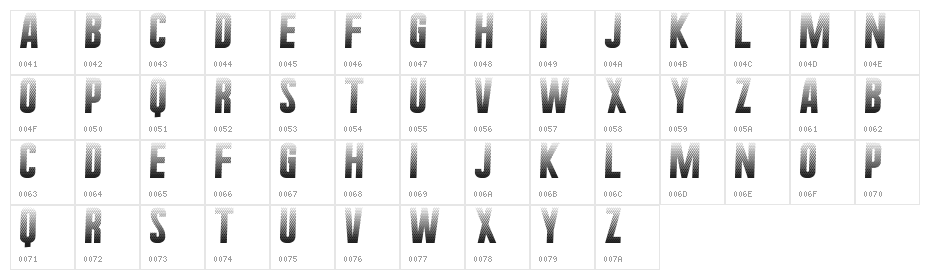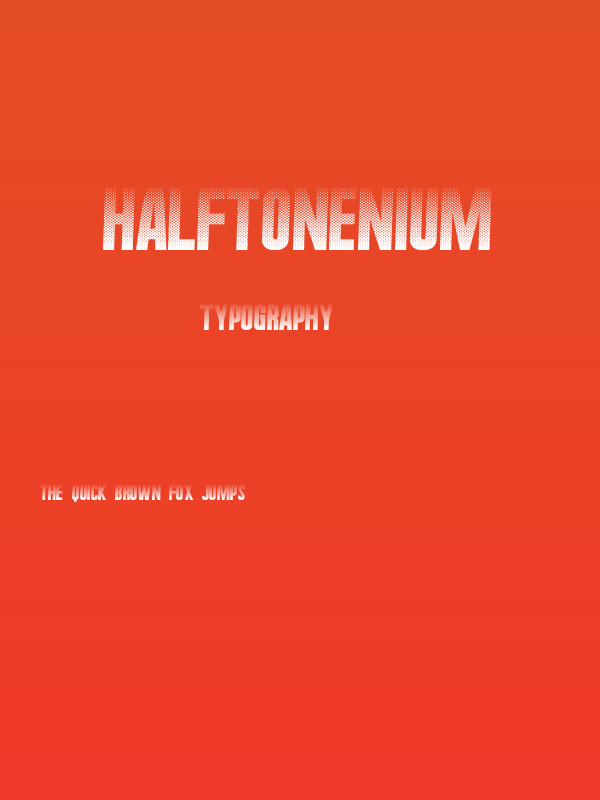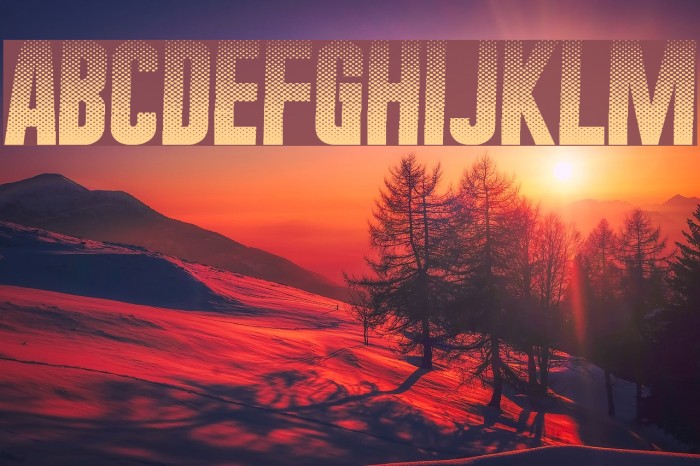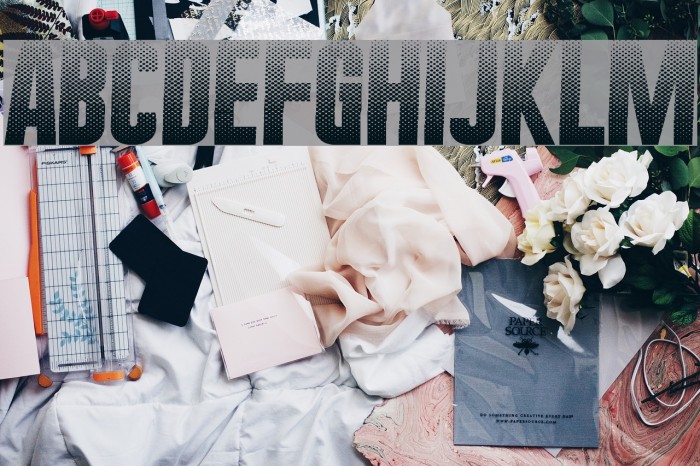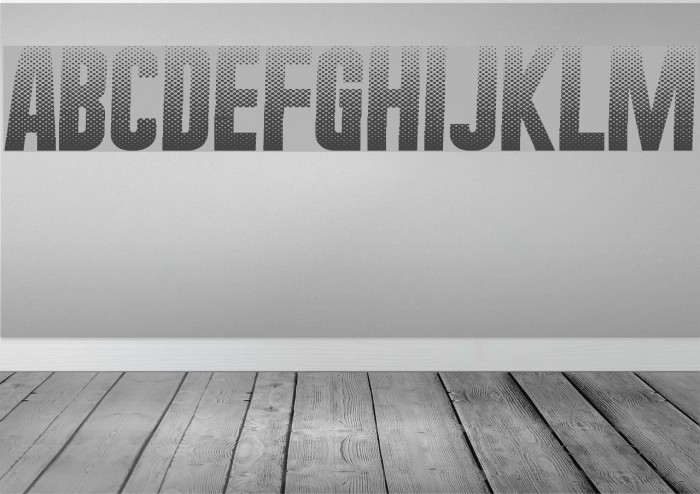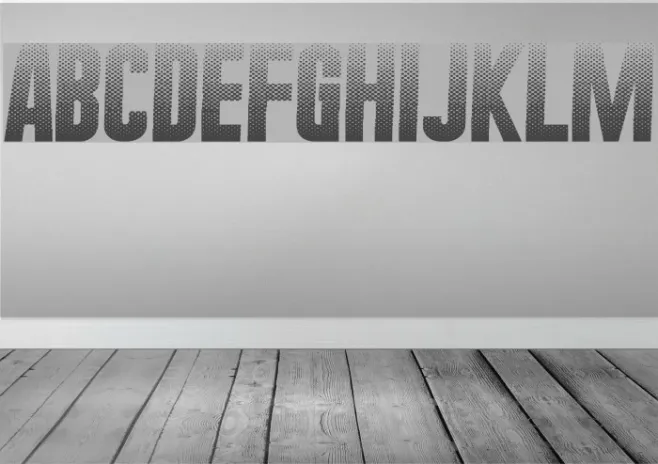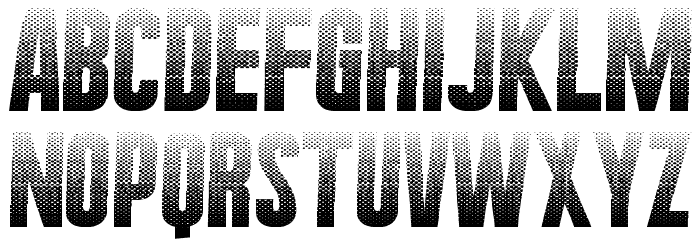
HalftoneNium Font
HalftoneNium Description
This font features a bold, impactful design with a unique halftone pattern that creates a gradient effect from top to bottom. The uppercase letters are strong and commanding, making them ideal for attention-grabbing headlines or titles. The halftone effect adds a layer of texture and visual interest, giving the font a modern and artistic feel. The characters are evenly spaced, ensuring readability while maintaining a distinctive style. This font is perfect for projects that require a bold statement, such as posters, advertisements, or branding materials.
| Proposed Projects | Posters, advertisements, branding materials, and any design needing a bold, artistic touch. |